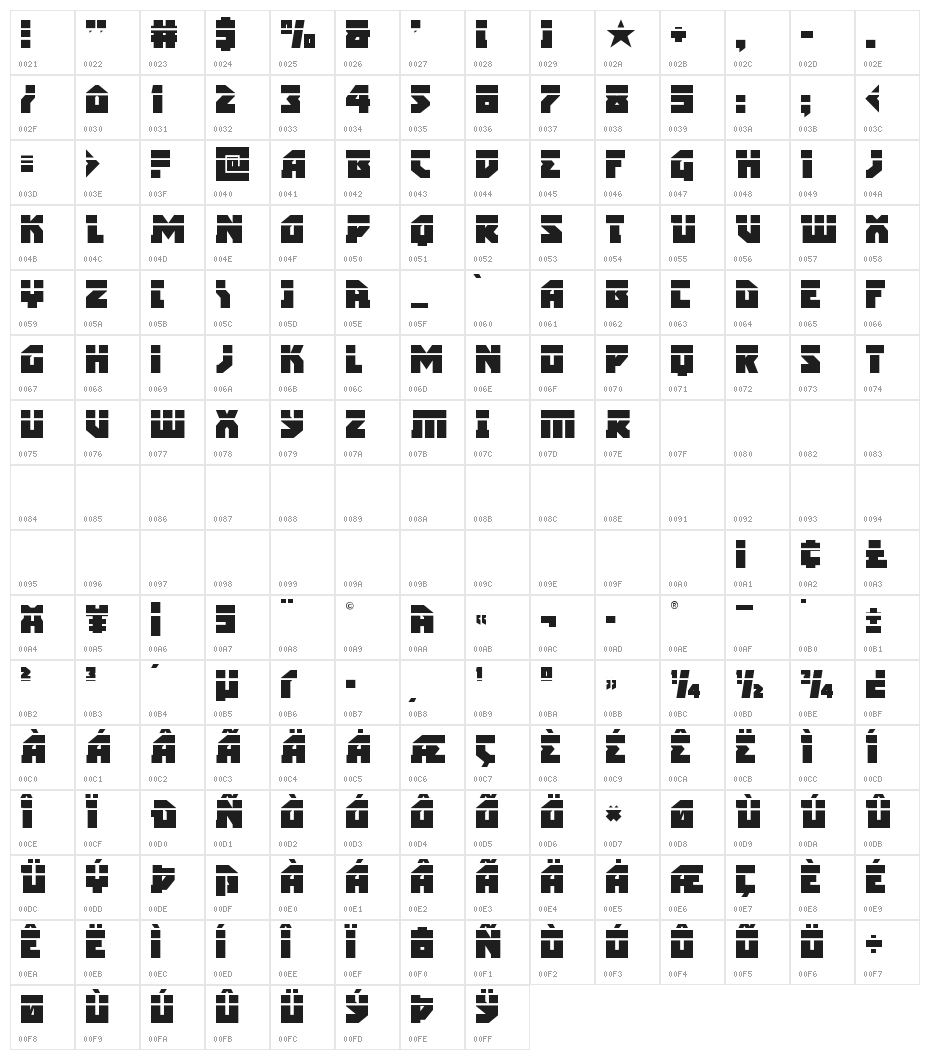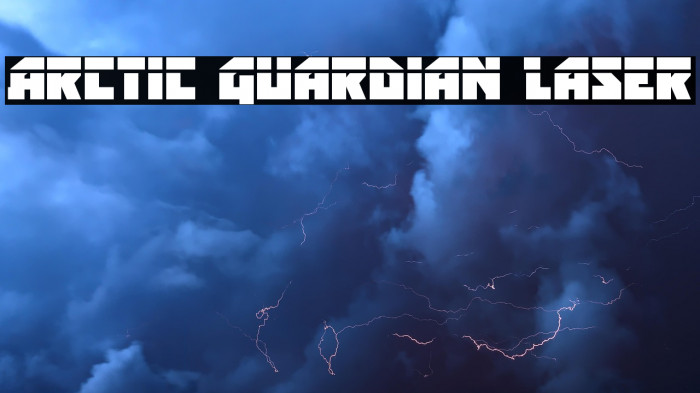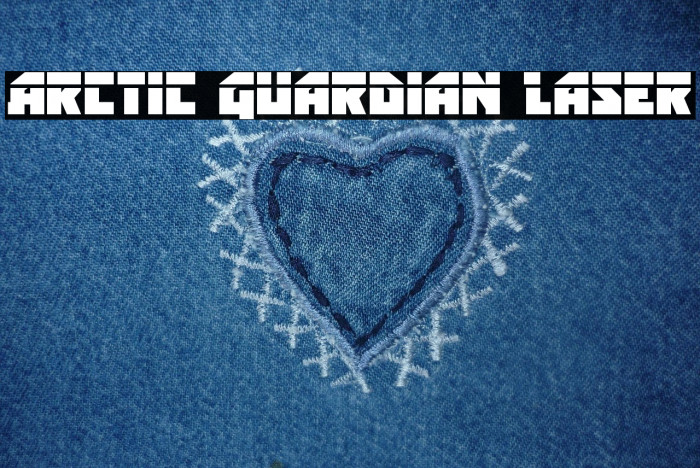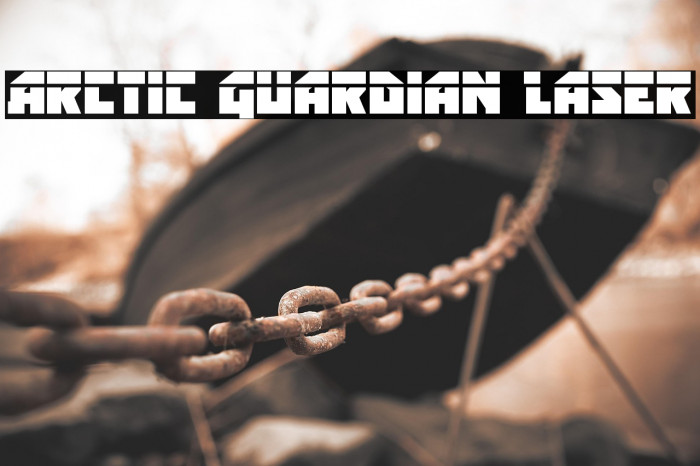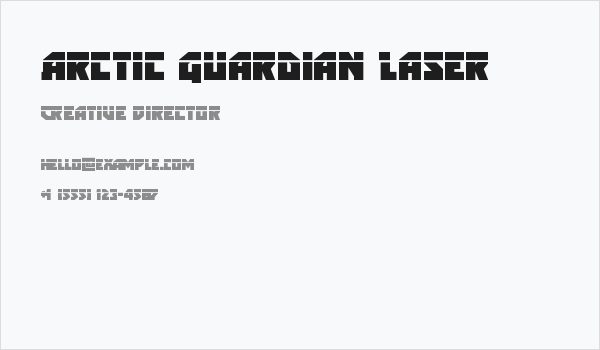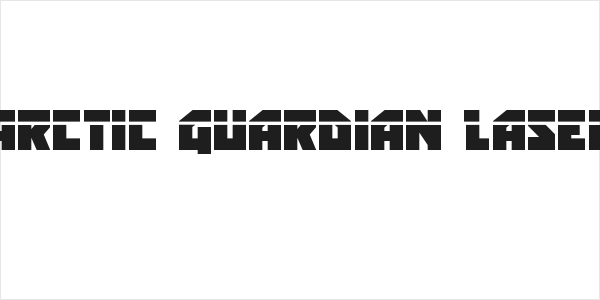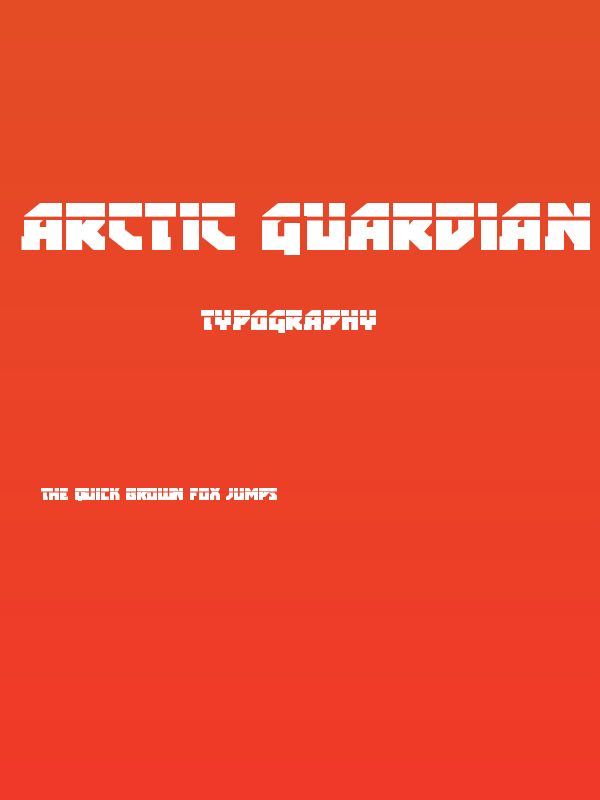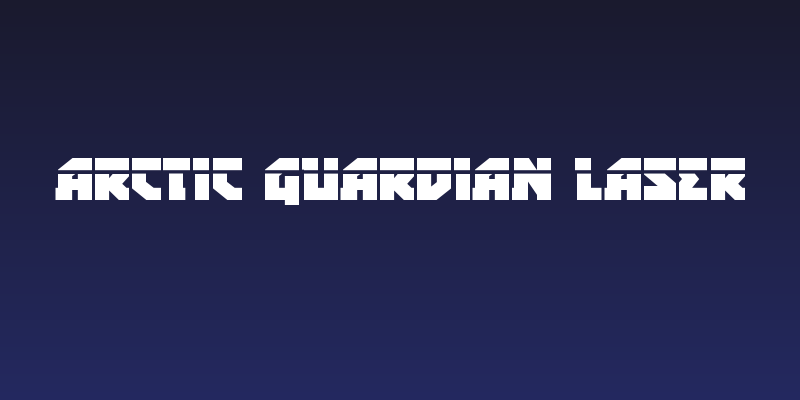
Arctic Guardian Laser Font
Arctic Guardian Laser Description
This font features a bold, geometric design with sharp angles and a futuristic aesthetic. The characters are constructed with solid, block-like shapes, giving them a strong presence. The uppercase and lowercase letters maintain a consistent style, emphasizing uniformity and precision. The numbers and special characters are equally robust, complementing the overall design. The font's unique style is reminiscent of digital or sci-fi themes, making it suitable for projects that require a modern and edgy look.
| Proposed Projects | Ideal for sci-fi themed designs, video game graphics, tech branding, and futuristic posters. |